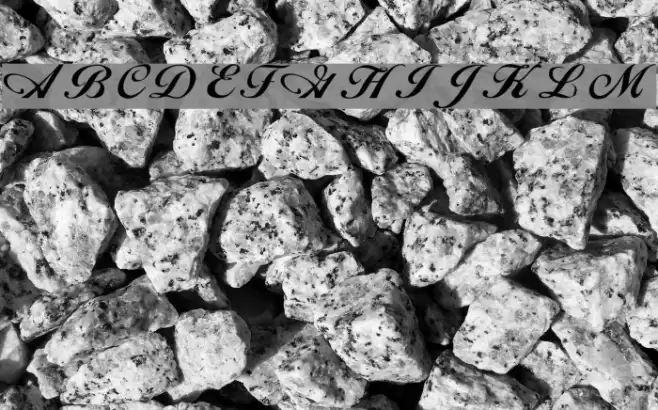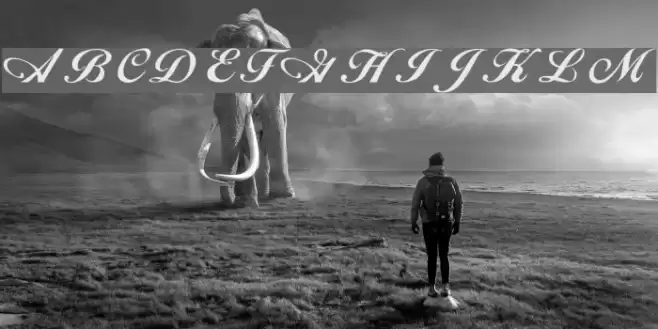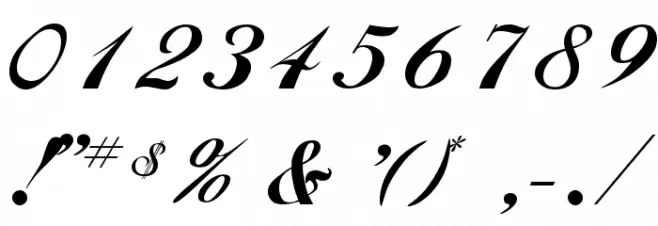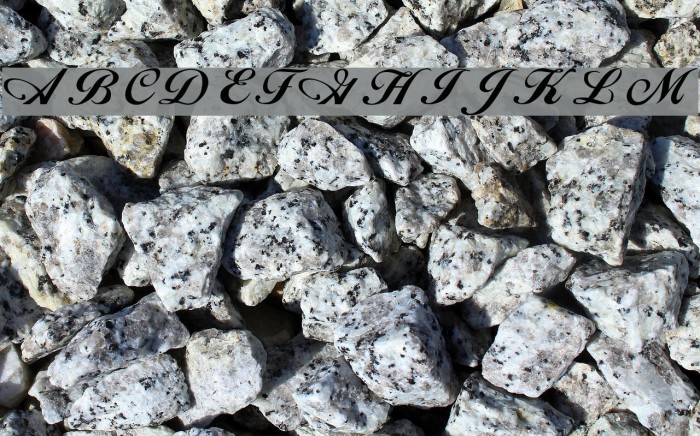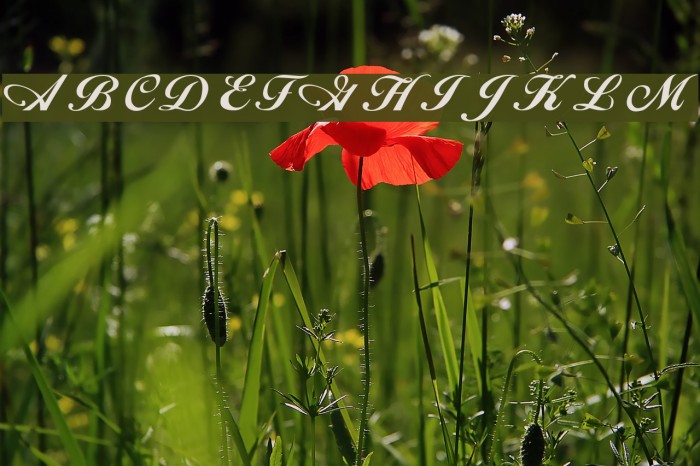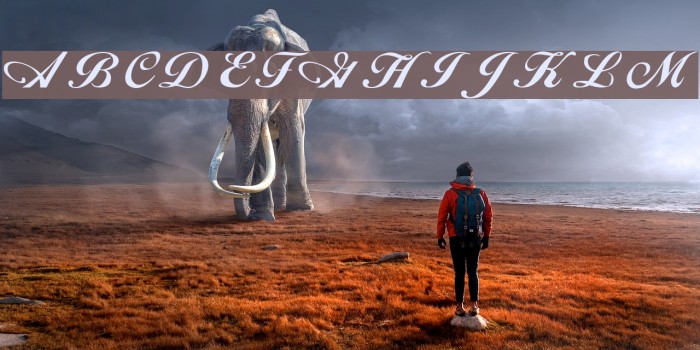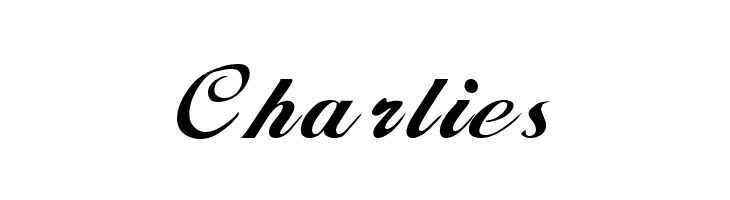
Alison Regular Font
Alison Regular Description
This elegant script font features a flowing, cursive style with intricate swashes and flourishes. The uppercase letters are particularly ornate, with decorative loops and curves that add a touch of sophistication. The lowercase letters maintain a consistent slant, enhancing the script's fluidity. Numbers and special characters are designed with the same attention to detail, ensuring a cohesive look across all glyphs. The font's overall appearance is both classic and decorative, making it suitable for formal invitations, branding, and other projects that require a touch of elegance.
An elegant script font with ornate swashes and a classic, decorative style from Decorative fonts.
- Proposed Projects: Ideal for wedding invitations, luxury branding, greeting cards, and elegant logo designs.
- Overall Style: Classic, Decorative
- Use Case: Headlines, Logos, Invitations